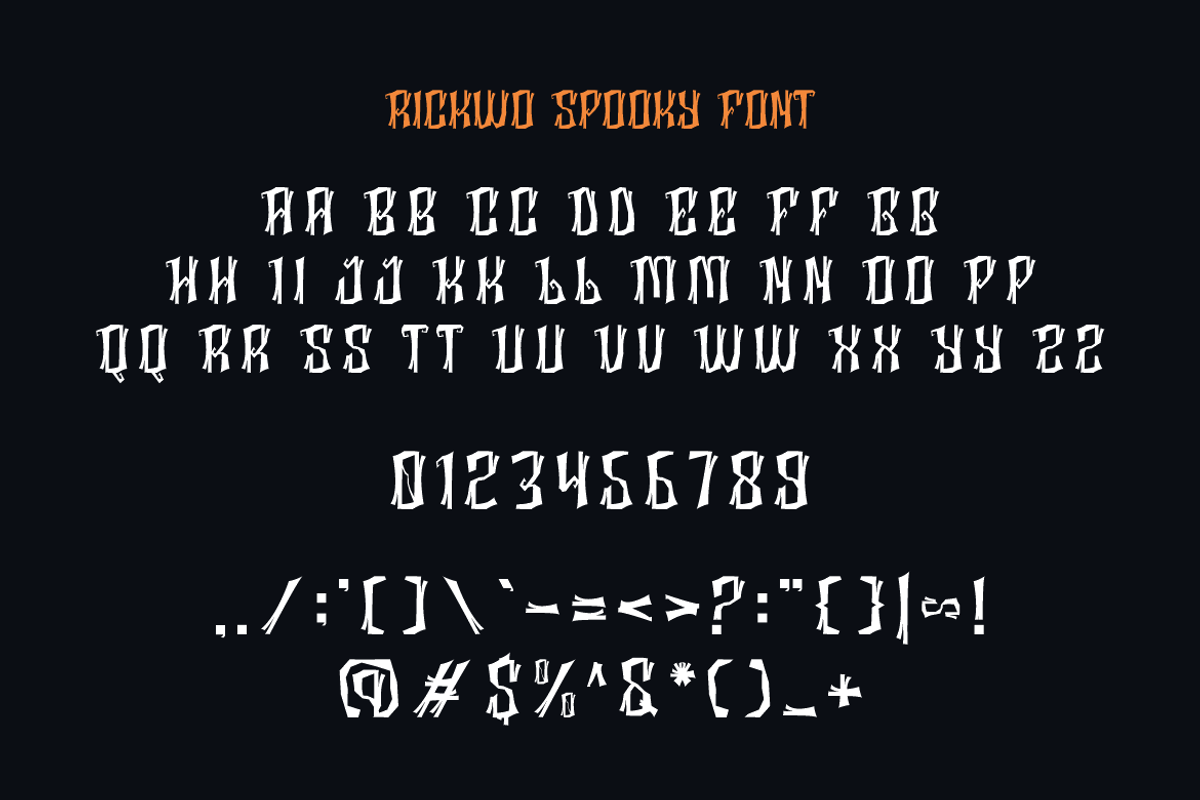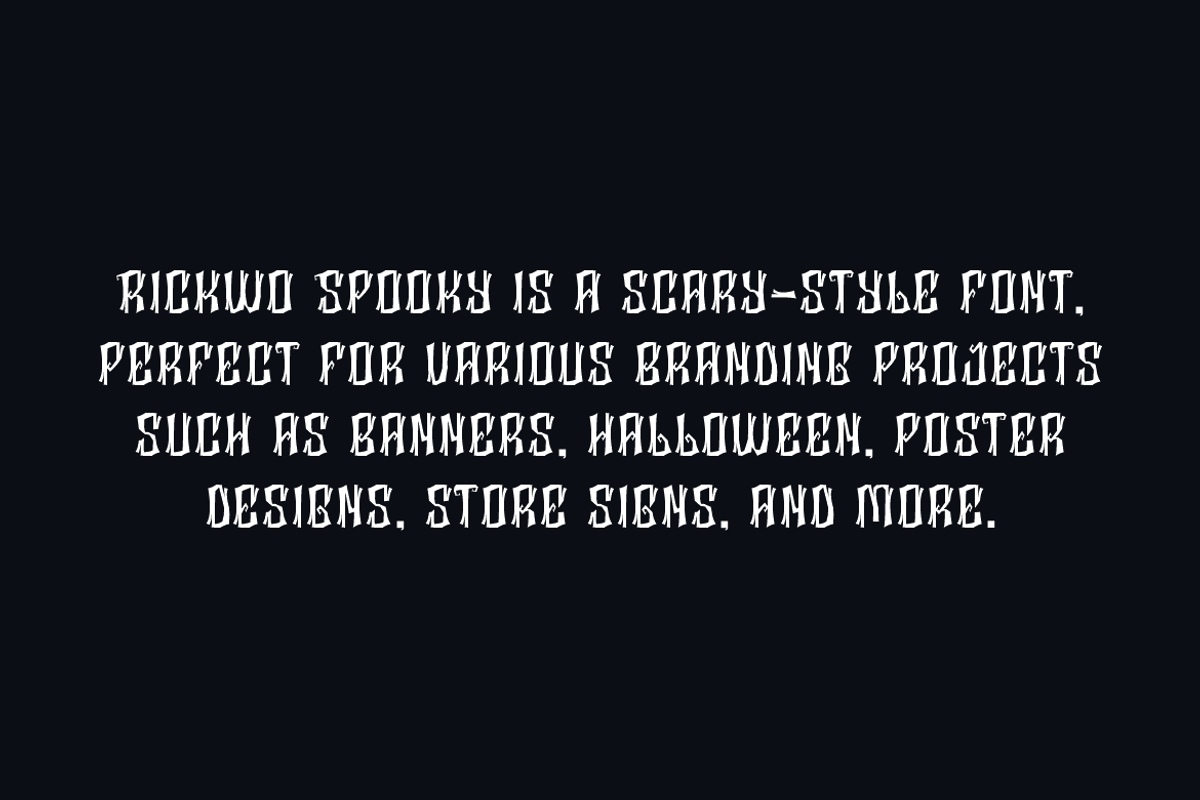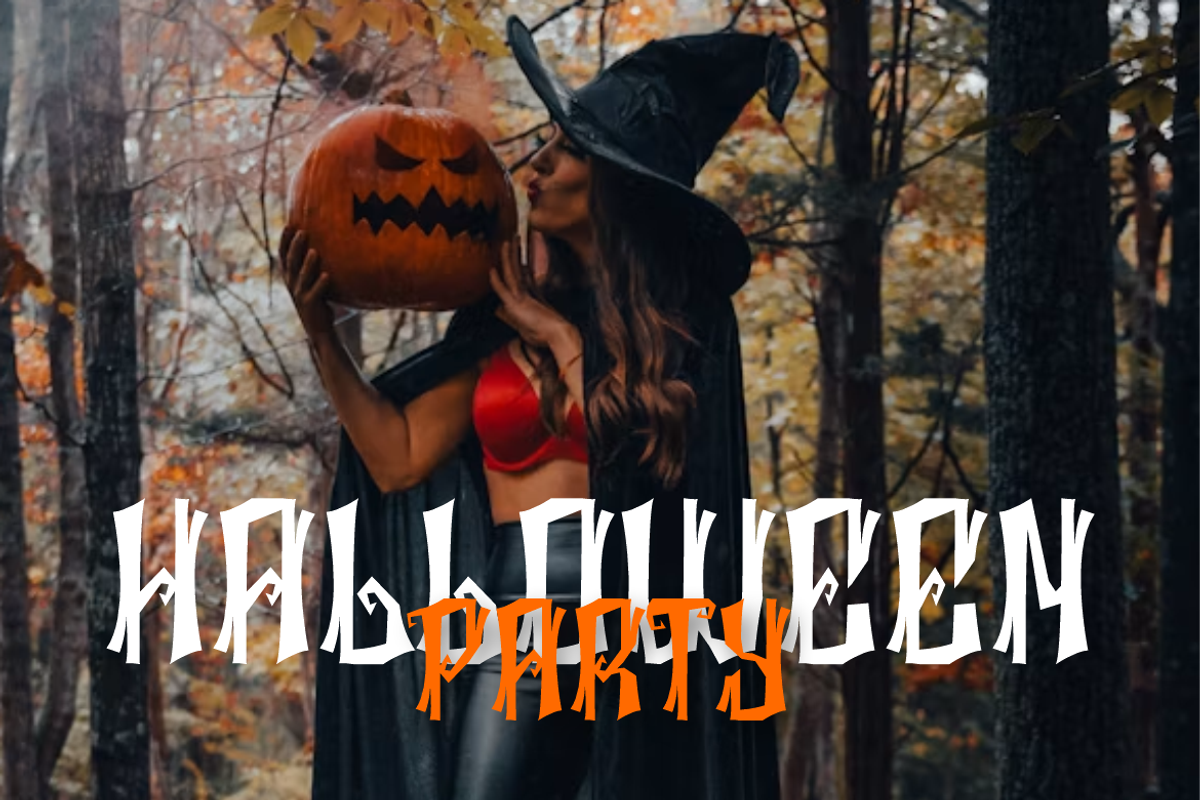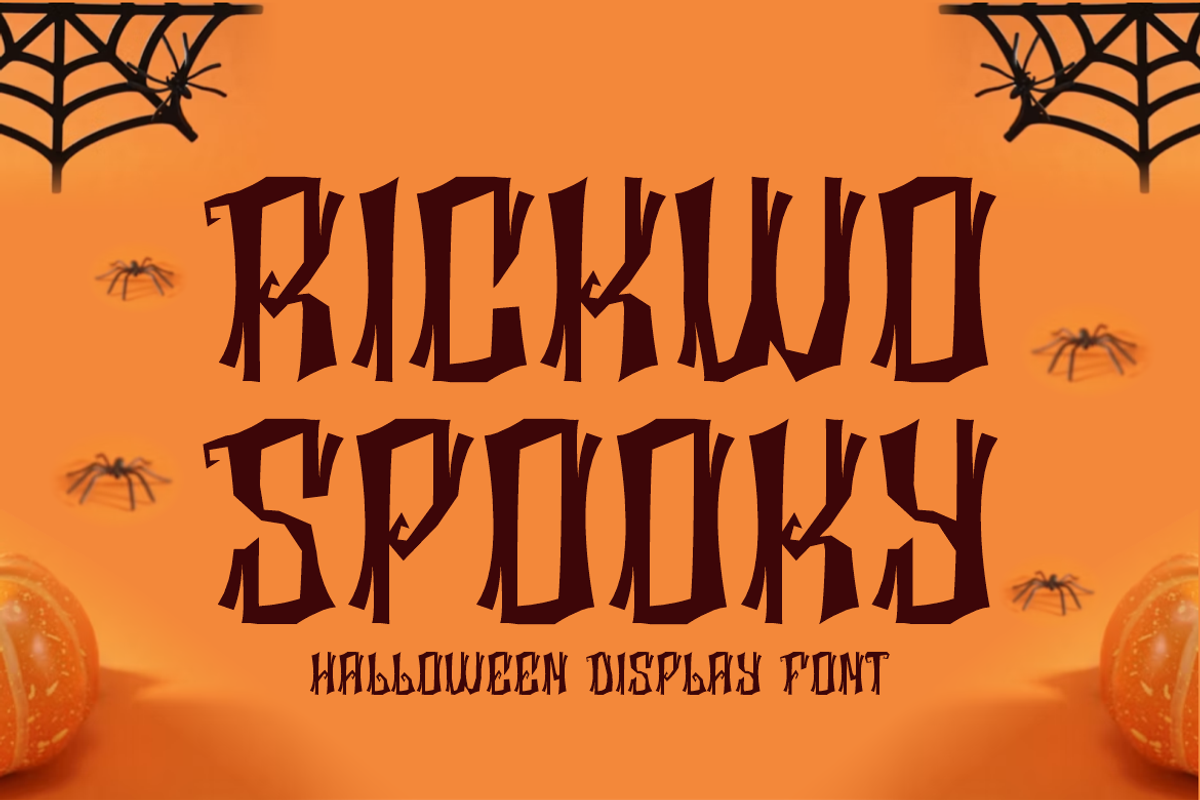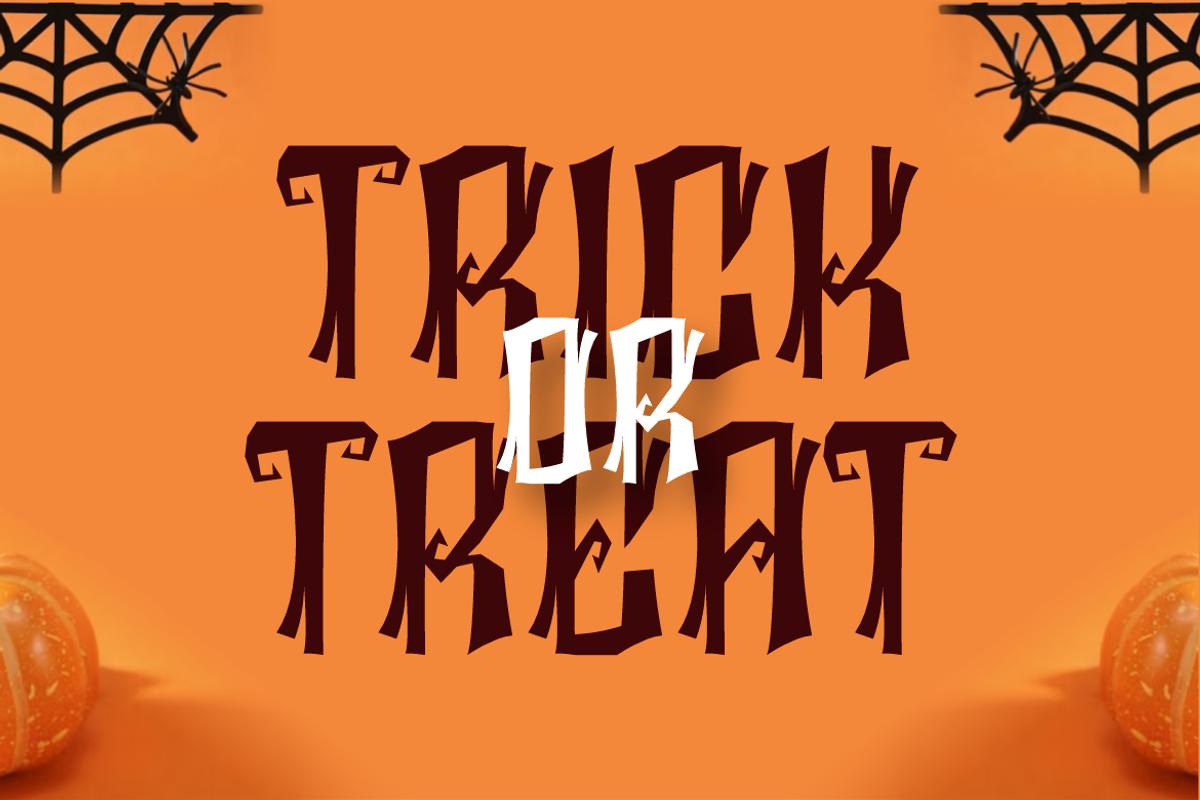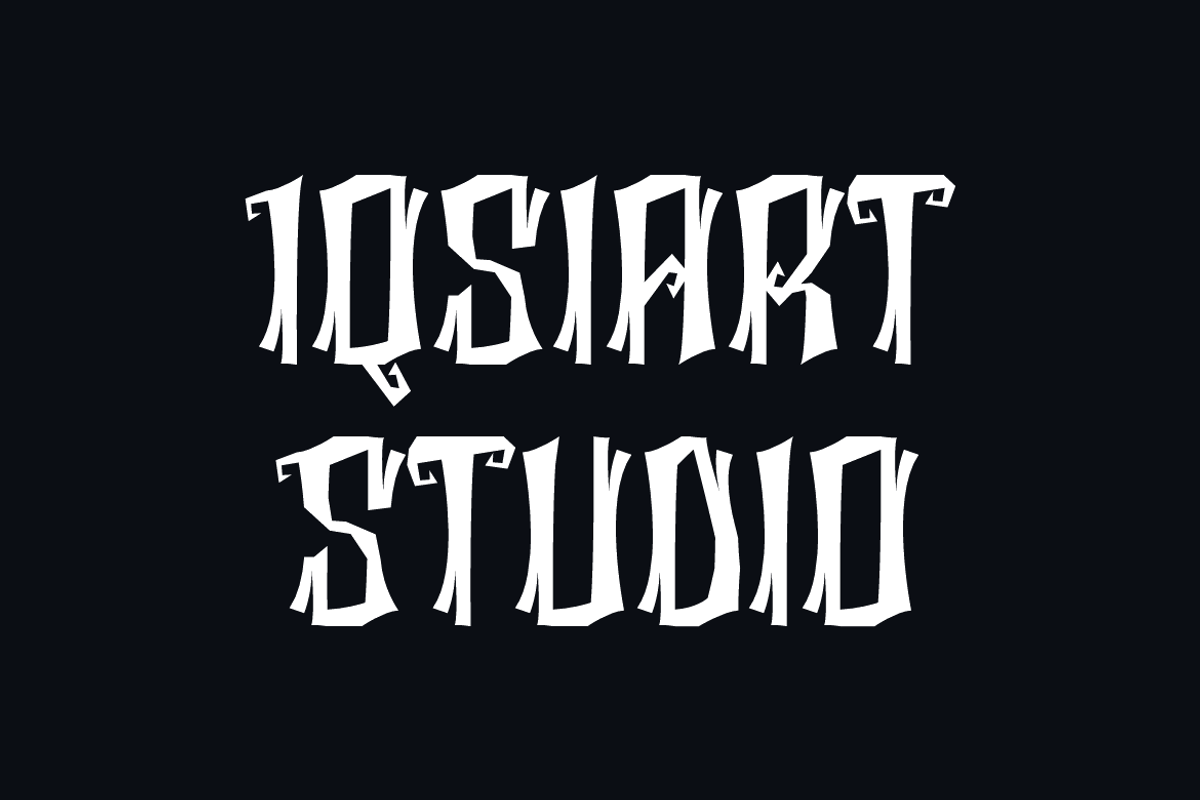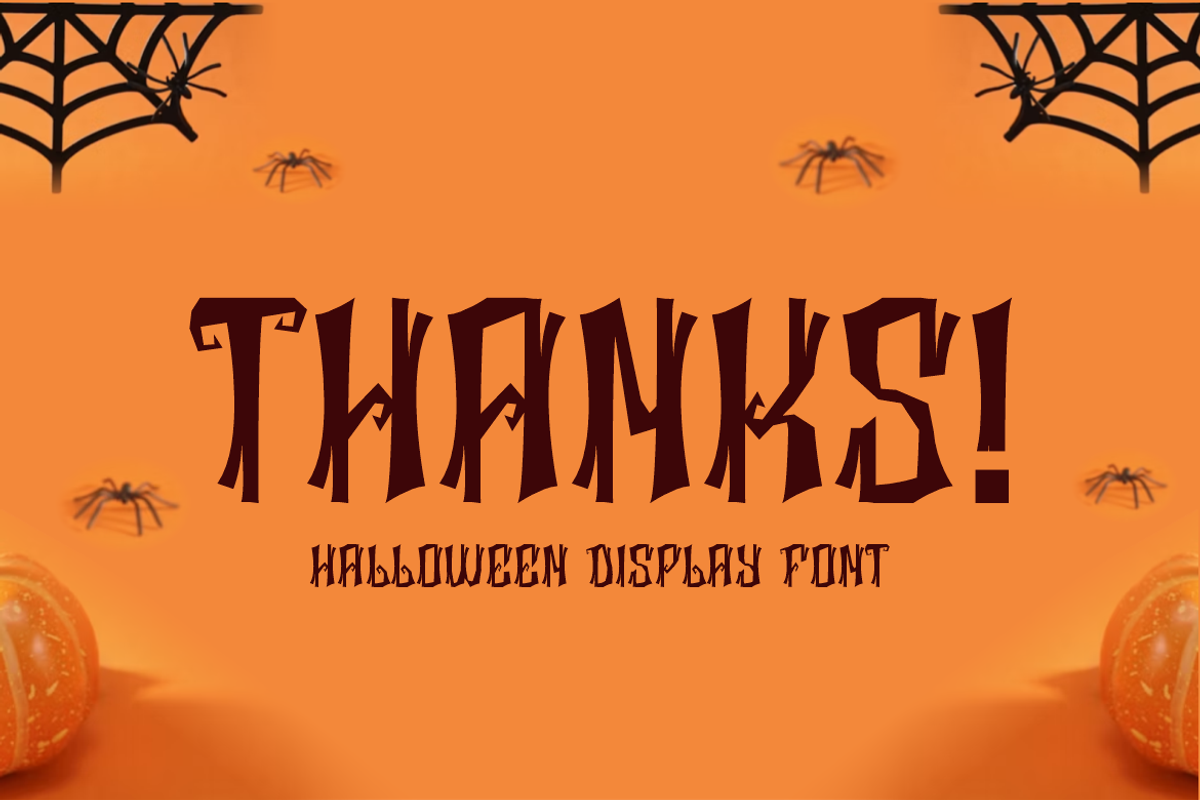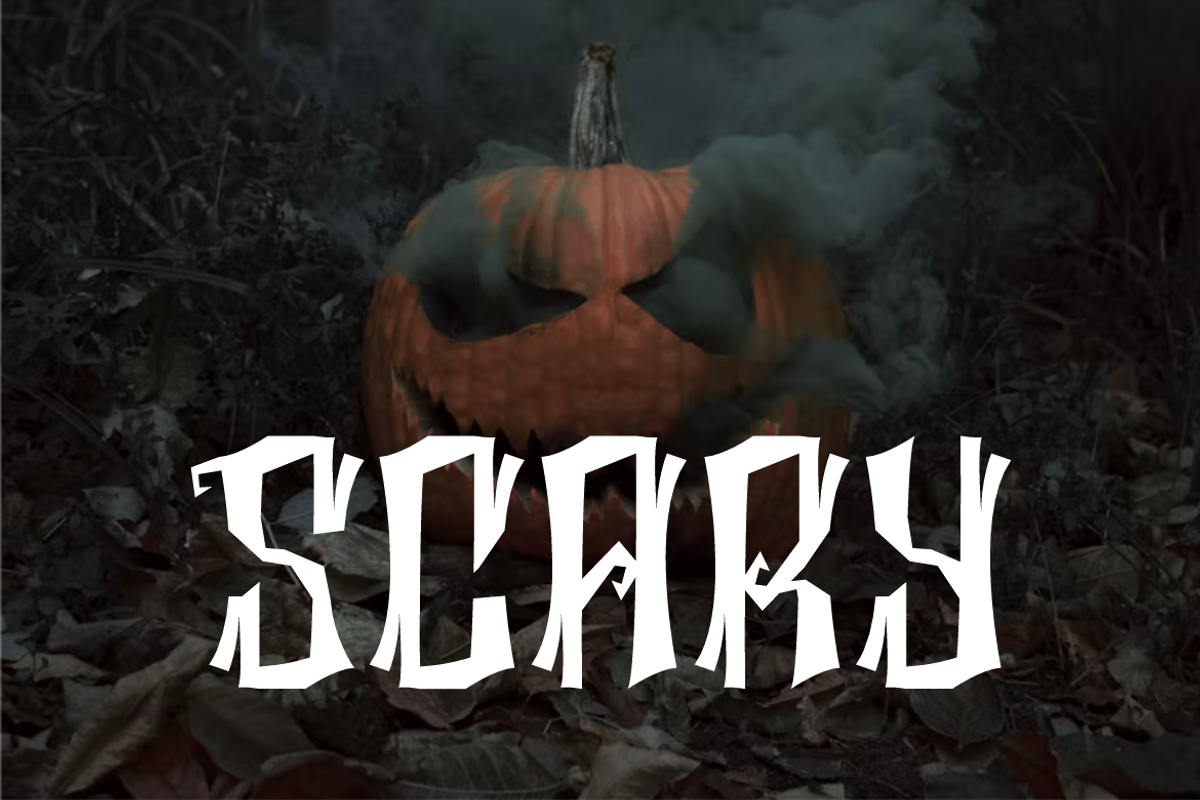
Rickwo Spooky - Halloween Font
Rickwo Spooky Font is a artdeco and authentic display typeface
that suits a variety of design needs. We offer a wide range of themes